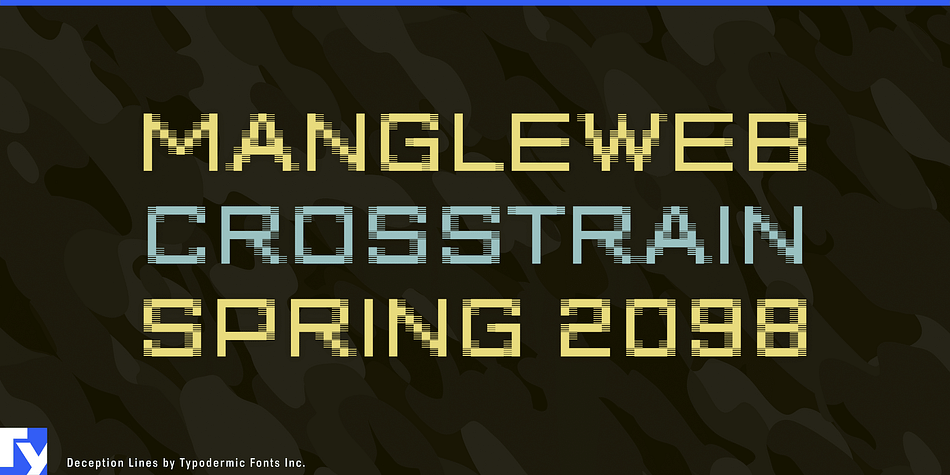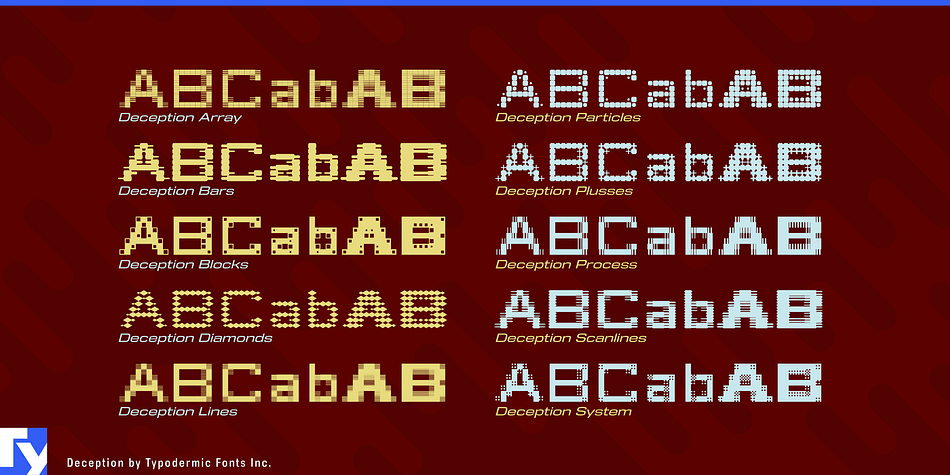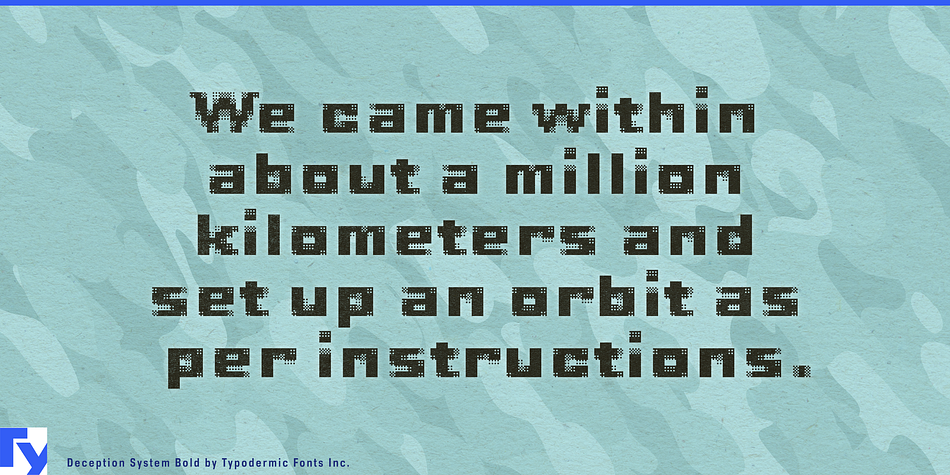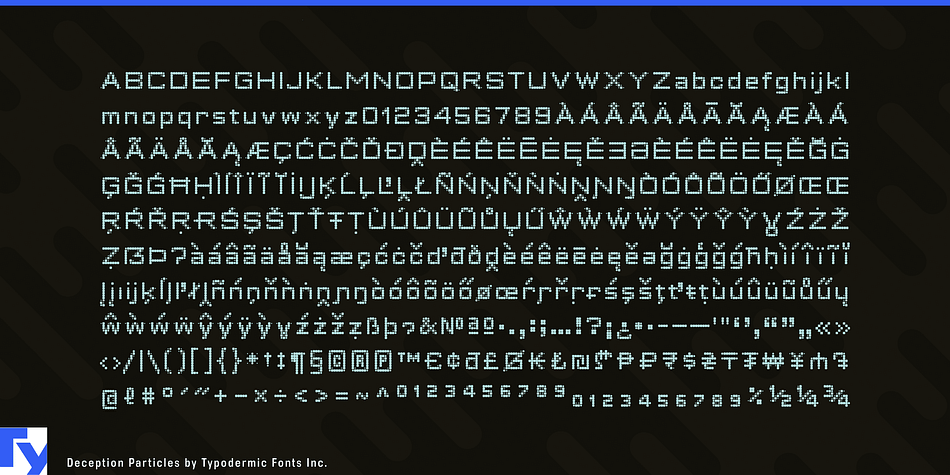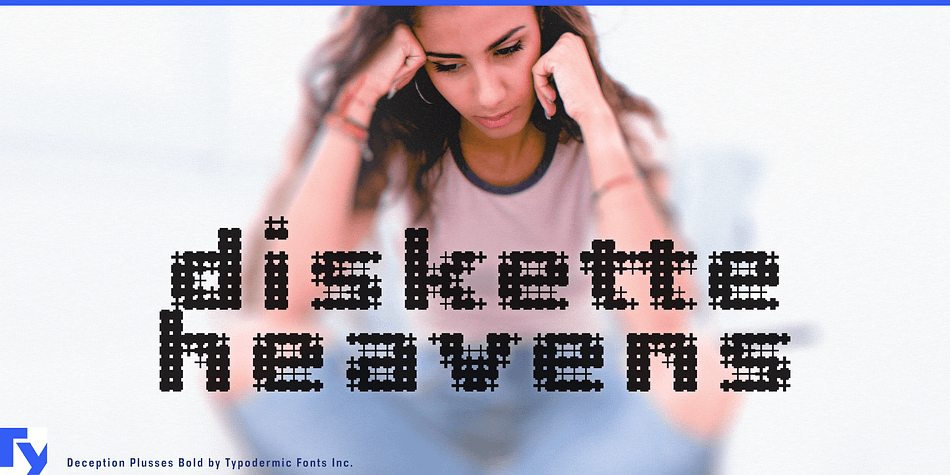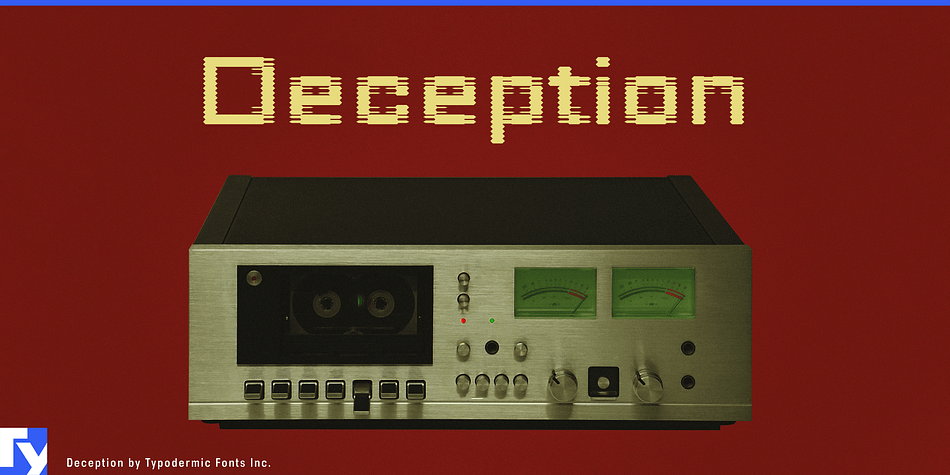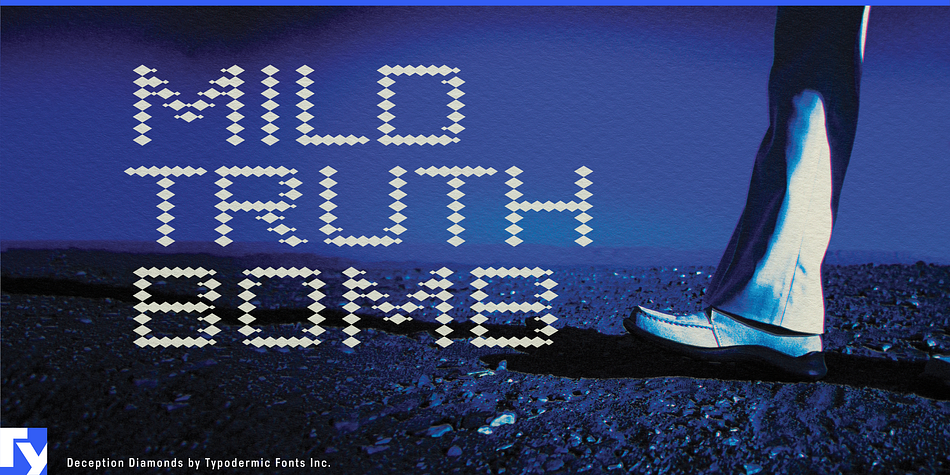
Designed by Ray Larabie, Deception is a pixel font family. This typeface has twenty styles and was published by Typodermic Fonts Inc.
Deception is a sub-pixel typeface with ten captivating effects. Deception Array is composed of wide blocks, reminiscent of a digital VU meter but also useful for portraying modern architectural themes. Deception Bars resembles text viewed through lenticular glass. Deception Blocks approximates heavy JPEG degradation and pixel sharpening glitch effects. Deception Diamonds is flashy and prestigious—try it with a glow effect. Deception Lines can produce a grayscale effect or banding depending on resolution and rendering type—keep experimenting and see what you can come up with. Deception Particles echoes the look of impact printers or laser etched sell-by dates. Deception Plusses energetically radiates positivity. Deception Process simulates grayscale LCD text or a thermal printer on the fritz. Deception Scanline duplicates the appearance of television picture tube text rendering—ideal for recreating a videogame or retro computing vibe. Deception System smacks of 1-bit dithering gone completely haywire. Each style of Deception is available in Regular and Bold. OpenType fractions, numeric ordinals and lots of currency symbols are included.
Style | Pixel |
Designer | Ray Larabie |